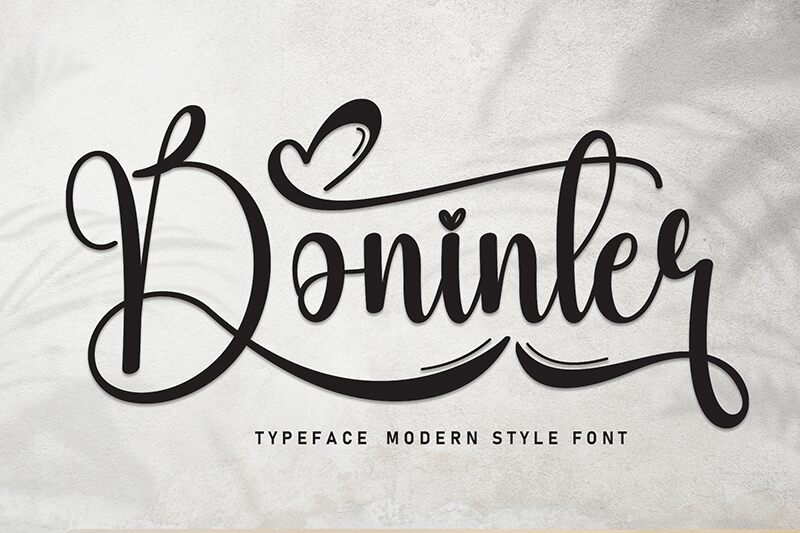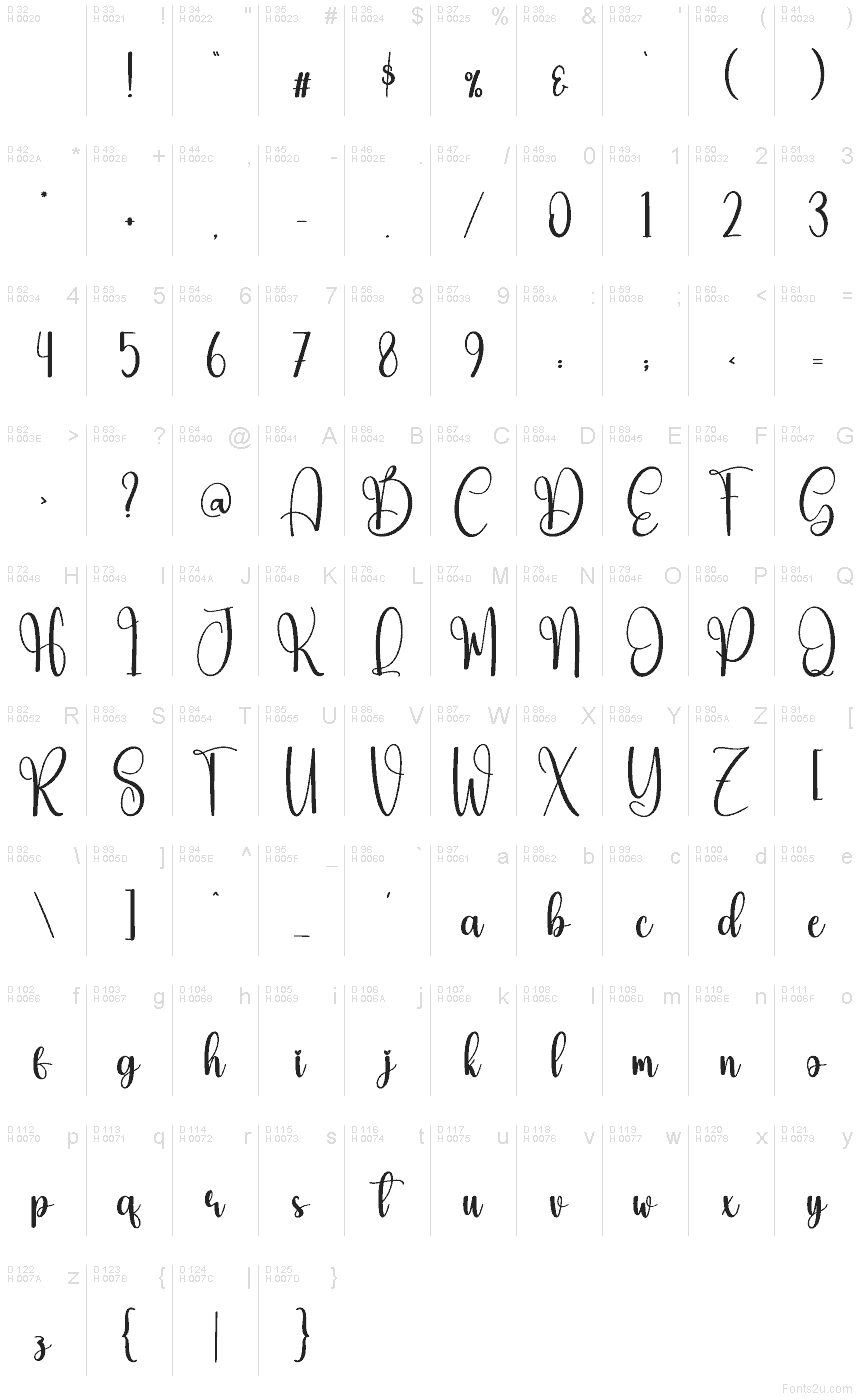
Boninter
Boninter font is a whimsical handwritten font designed by Scratchones, offering a modern script with elegant, decorative features. Flowing curves and playful heart accents give this free calligraphy font its personal and creative touch for a range of design projects.